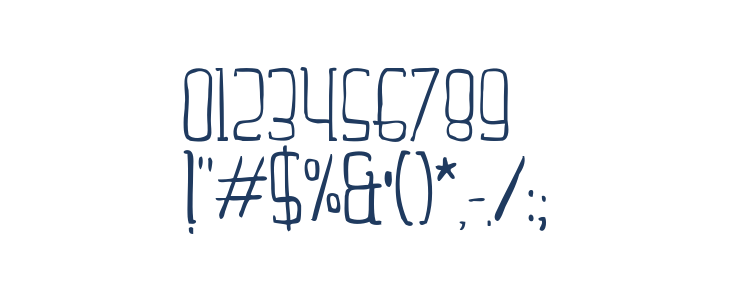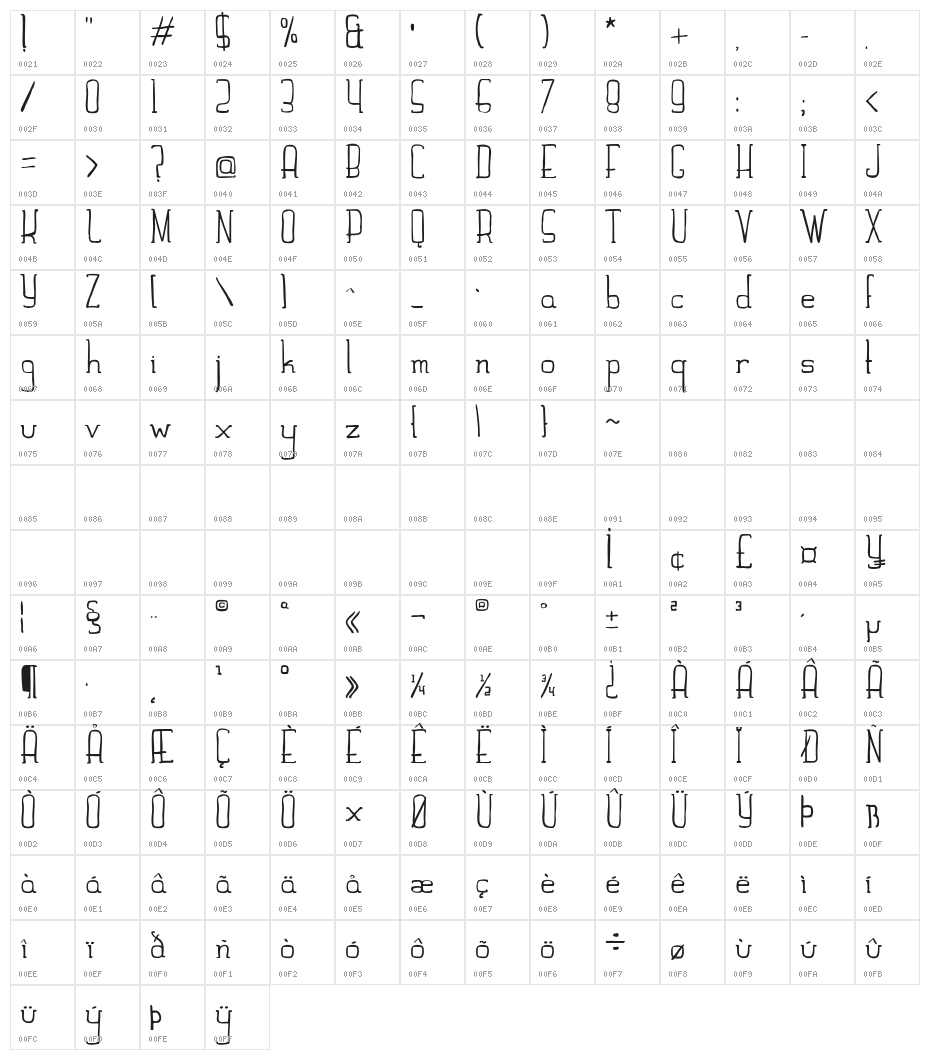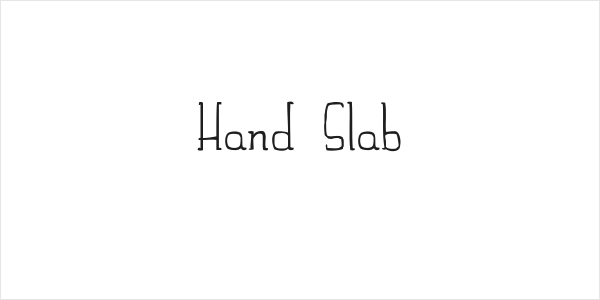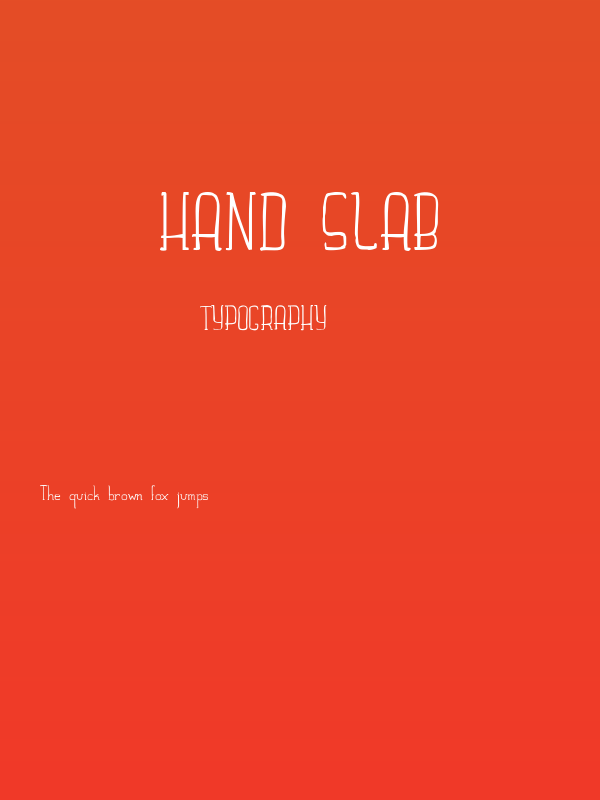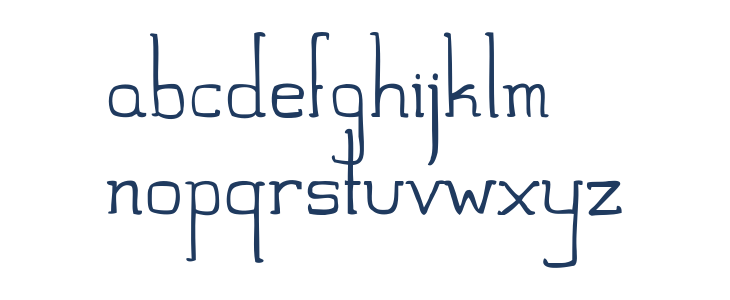
Hand Slab Font
Hand Slab Description
This font features a unique blend of hand-drawn aesthetics and slab serif characteristics. The letters are tall and narrow, with a playful, slightly irregular stroke that gives it a handcrafted feel. The serifs are pronounced but not overly heavy, adding a touch of elegance without sacrificing readability. The lowercase letters maintain a consistent style with the uppercase, ensuring a cohesive look across different text sizes. Numbers and special characters are designed with the same attention to detail, making them stand out while remaining harmonious with the overall font design.
| Width | Condensed |
| Overall Style | Handcrafted, Playful |
| Use Case | Headlines, Logos, Creative projects |
| Proposed Projects | Ideal for creative projects such as invitations, posters, and branding materials that require a personal touch. |